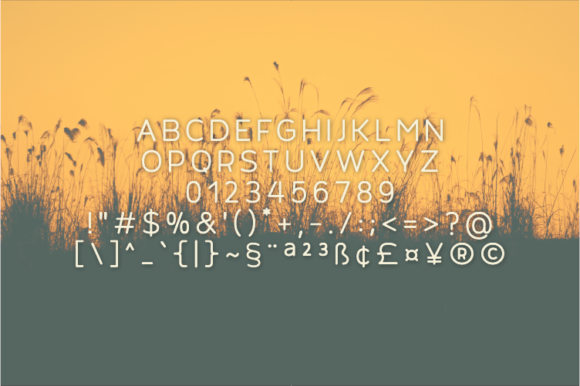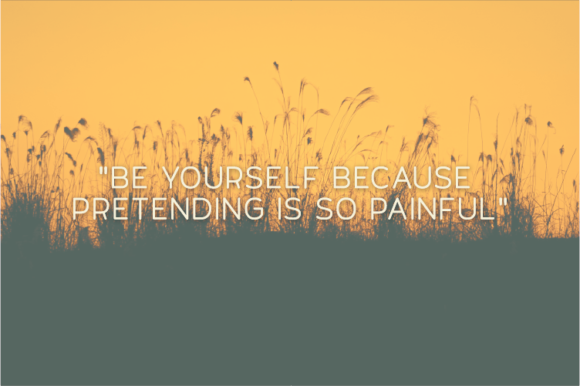
Introduction to Playfload Font
Have you ever been working on a creative project, pouring your heart and soul into it, only to feel like something is missing? That’s where the right font can make all the difference. I still remember the moment I discovered the Playfload Font, and how it instantly elevated my design to the next level.
As a designer, you know how crucial it is to have a high-quality font that complements your message. Playfload Font is a minimal and neat sans serif font that is perfect for any creative project. Its clean lines and modern aesthetic make it an incredibly valuable asset to your design library, and it’s available for free download, making it an accessible resource for designers of all levels.
Key Features of Playfload Font
- High-quality design: This font is crafted with precision and care, ensuring a professional look for your design resource.
- Transparent background: The Playfload Font features a transparent background, making it easy to overlay on any image or design.
- Large character set: The Playfload Font includes a comprehensive character set, covering a wide range of languages and symbols.
- Unique style: The Playfload Font boasts a distinctive, modern design that sets it apart from other free fonts available for download.
Honest Review: Playfload Font
I recently had the chance to work with the Playfload Font, and I must say it’s been a game-changer for my creative project. The font is incredibly versatile, making it perfect for any design task.
What works well is the high quality and transparent background that makes it easy to use in various design contexts. I also appreciate the free download option, which is always a plus. The font is also incredibly customizable, allowing me to tailor it to my specific design needs.
- What I love about the Playfload Font:
- ✨ High-quality design that stands out
- ✨ Easy to customize for any design project
- What I’d improve:
- ⚠️ Limited font sizes and styles
- ⚠️ Not ideal for large-scale commercial projects
Overall, the Playfload Font is a great design resource that’s perfect for smaller-scale creative projects. While it has some limitations, its high quality and customizable design make it a valuable asset for any designer. I’d definitely recommend it to anyone looking for a reliable font for their design needs.
Tips for Getting the Most Out of Playfload Font
Experiment with different font sizes and styles to create a visually appealing design. Combine the Playfload Font with other design elements, such as images and shapes, to create a unique and engaging design.
The Playfload Font is ideal for a variety of creative projects, including graphics, presentations, and documents. Its high-quality design and transparent background make it a valuable resource for designers and non-designers alike.